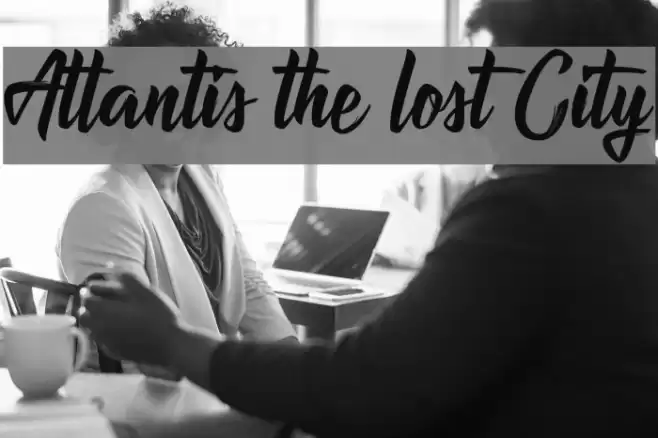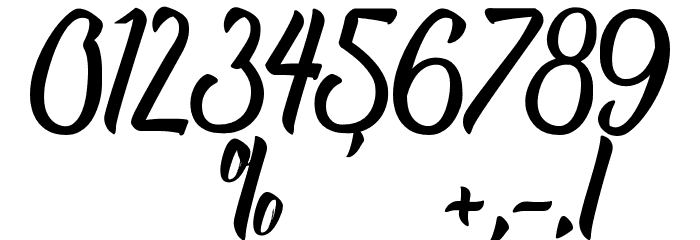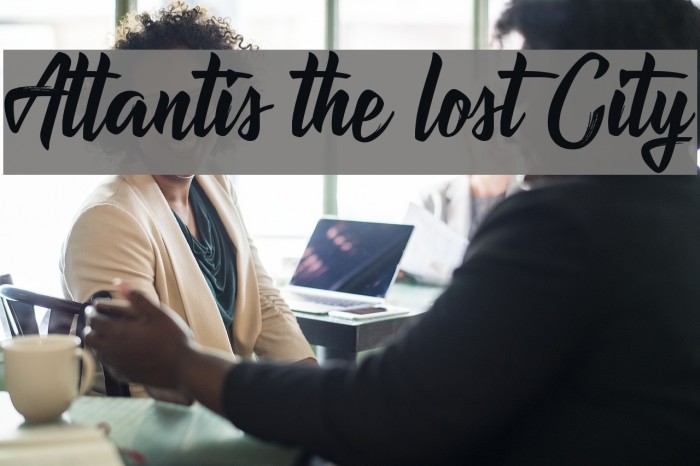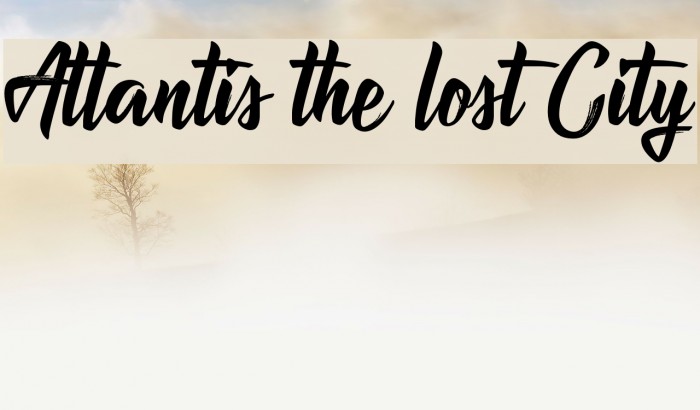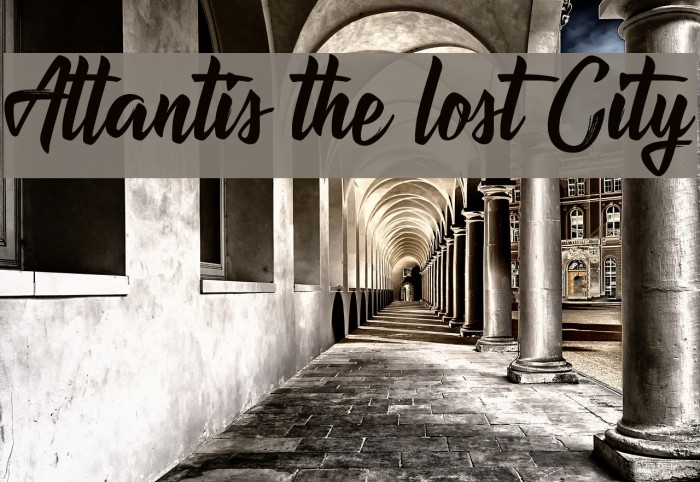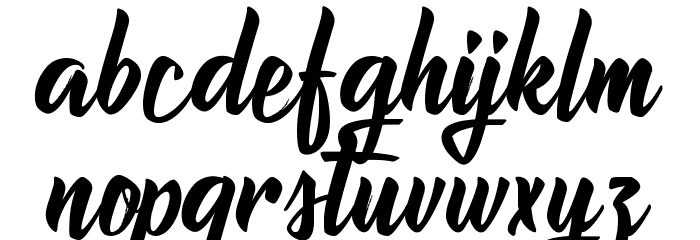
Atlantis the lost City Font
Atlantis the lost City Description
This font features a dynamic and expressive style, characterized by its brush-like strokes and fluid motion. The uppercase letters exhibit a bold and energetic flair, with varying stroke widths that add a sense of movement and vitality. The lowercase letters maintain this lively aesthetic, with smooth curves and a slightly informal touch. Numbers and special characters are crafted with the same attention to detail, ensuring consistency across all elements. The overall appearance is both artistic and approachable, making it suitable for creative projects that require a personal and engaging touch.
A dynamic, brush-style font with expressive strokes and fluid motion from Uncategorized fonts.